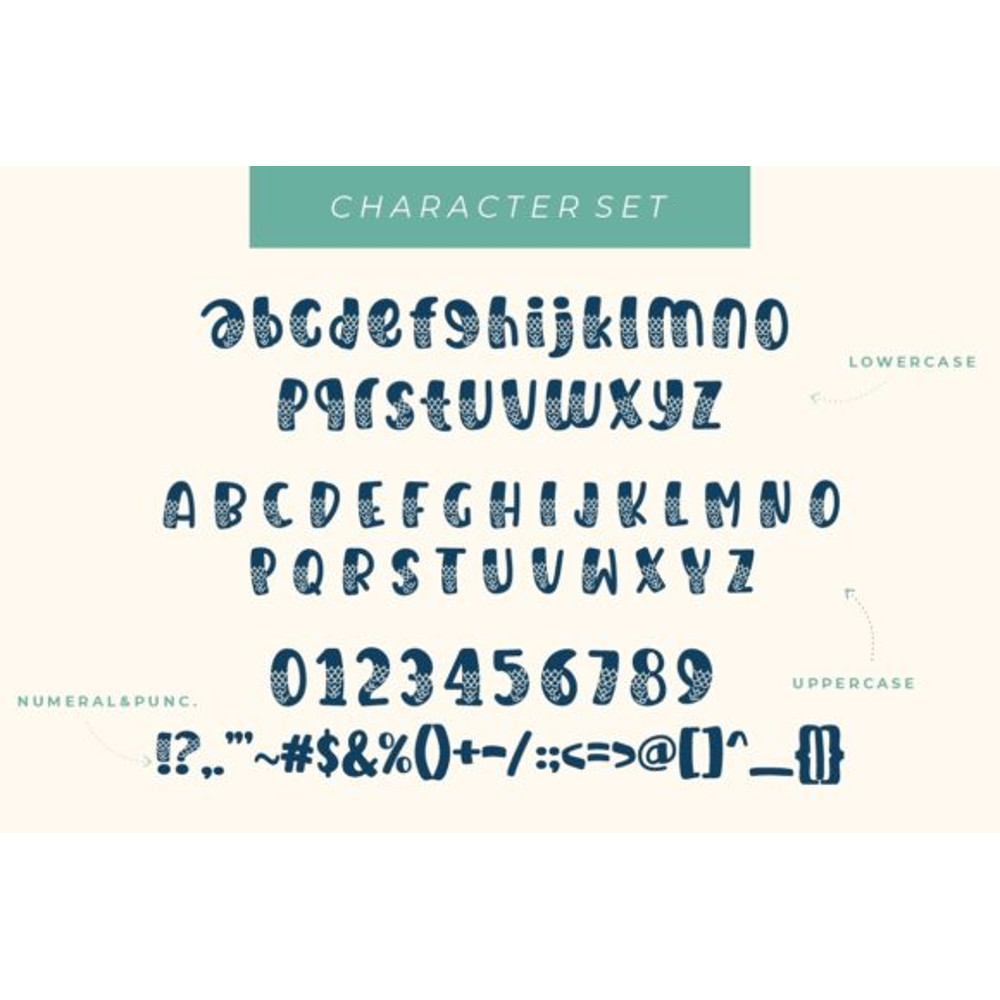
Mermaid Font
Mermaid is a cool and cute looking display font. Add to each of your party invitation, swimming gathering or pretty much any design that requires a touch of youth and joy.